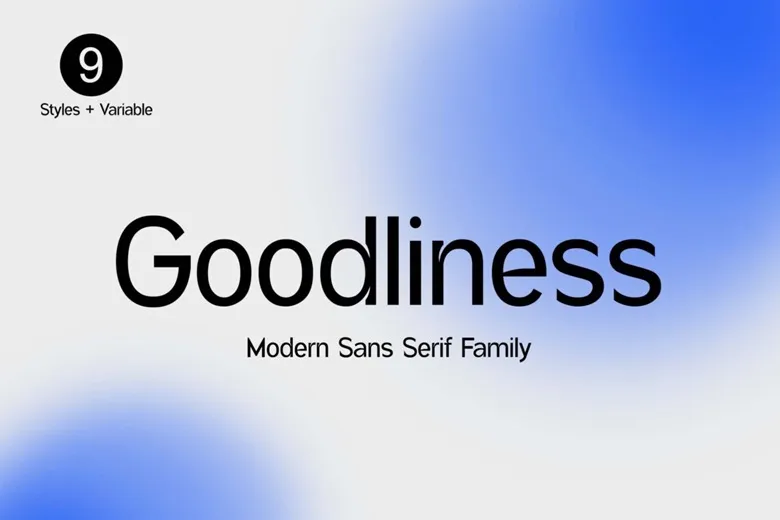
Goodlinest Font Family
Goodlines is an elegant and modern sans serif family. This font is perfect for many purposes such as: stationery, logo, wedding, typography quotes, magazine or book covers, website headers, branding and many others. In addition, fashion related brand or editorial design can be both androgenic and gynoid.